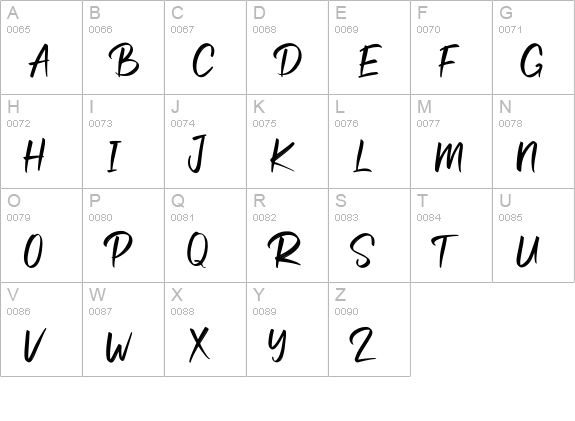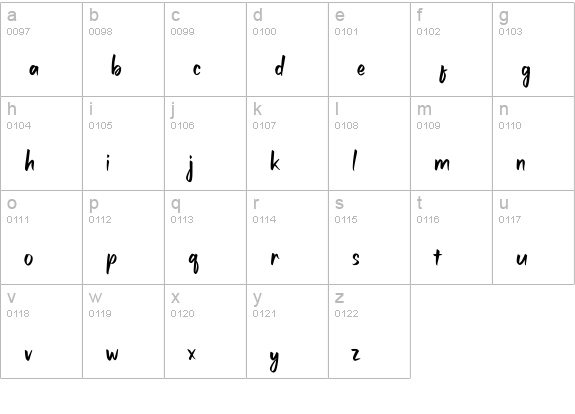
Busten is a demo font in the Fancy > Cartoon category, designed by craftsupplyco. It has been downloaded 63 times and is available for Windows, Mac and Linux.
Busten font is a beautiful and elegant typeface that exudes sophistication and style. Its sleek lines and modern aesthetic make it perfect for a wide range of design projects, from branding to editorial layouts. The font features a unique combination of sharp angles and flowing curves, creating a harmonious balance that is visually appealing.